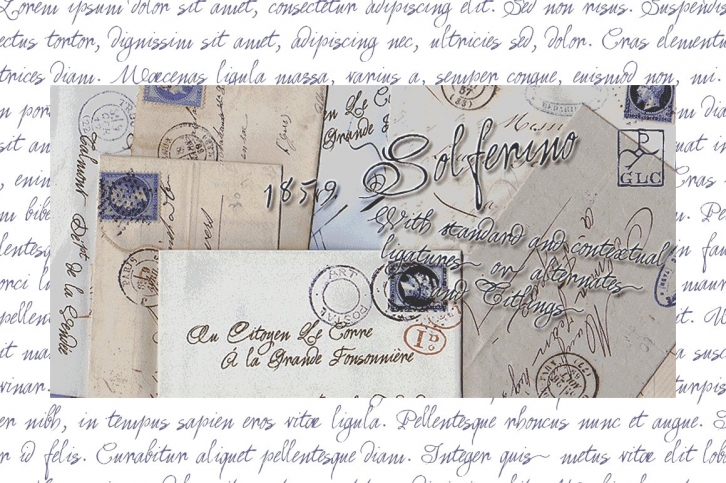
This font is a late XIXe French script overview created inspired from numerous French letters, from around years 1850-1860, during the second French empire, under Napoleon the third . Most of them were written with very tiny characters on light sheets of paper, as the stamps prices were calculated from the letter's weight.
The OTF version is enriched with more than 50 ligatures and/or alternate characters. We also offer a choice of two sorts of Capitals.